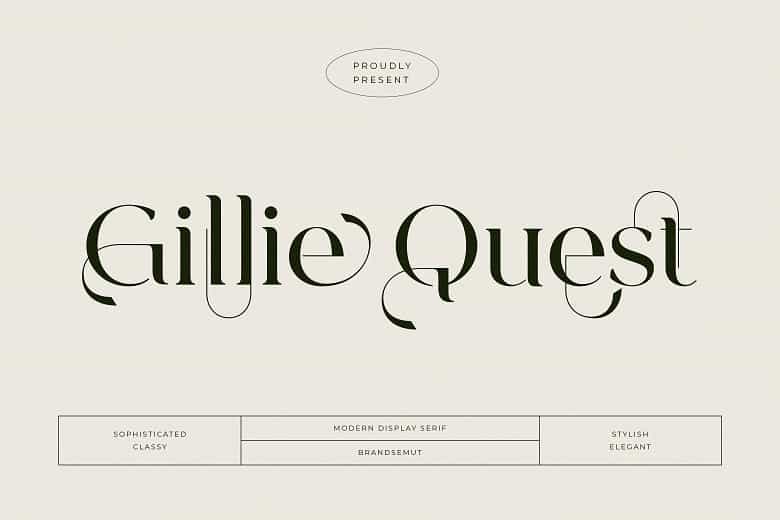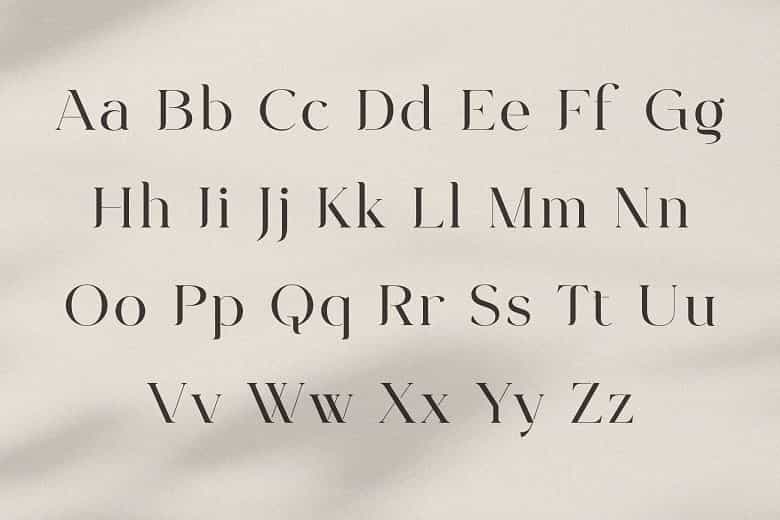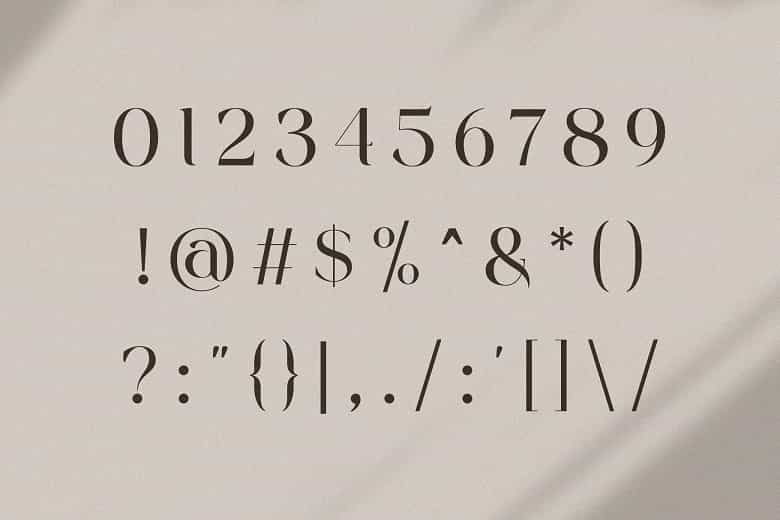
Gillie Questa is a new display serif font with a contemporary look and design which gives refined and stylish look to the letters. It has sharp edges, and stunning curves to make any design stand out and used for titles, logos or branding. This font has the traditional serifs with a modern touch to it making it quite professional.